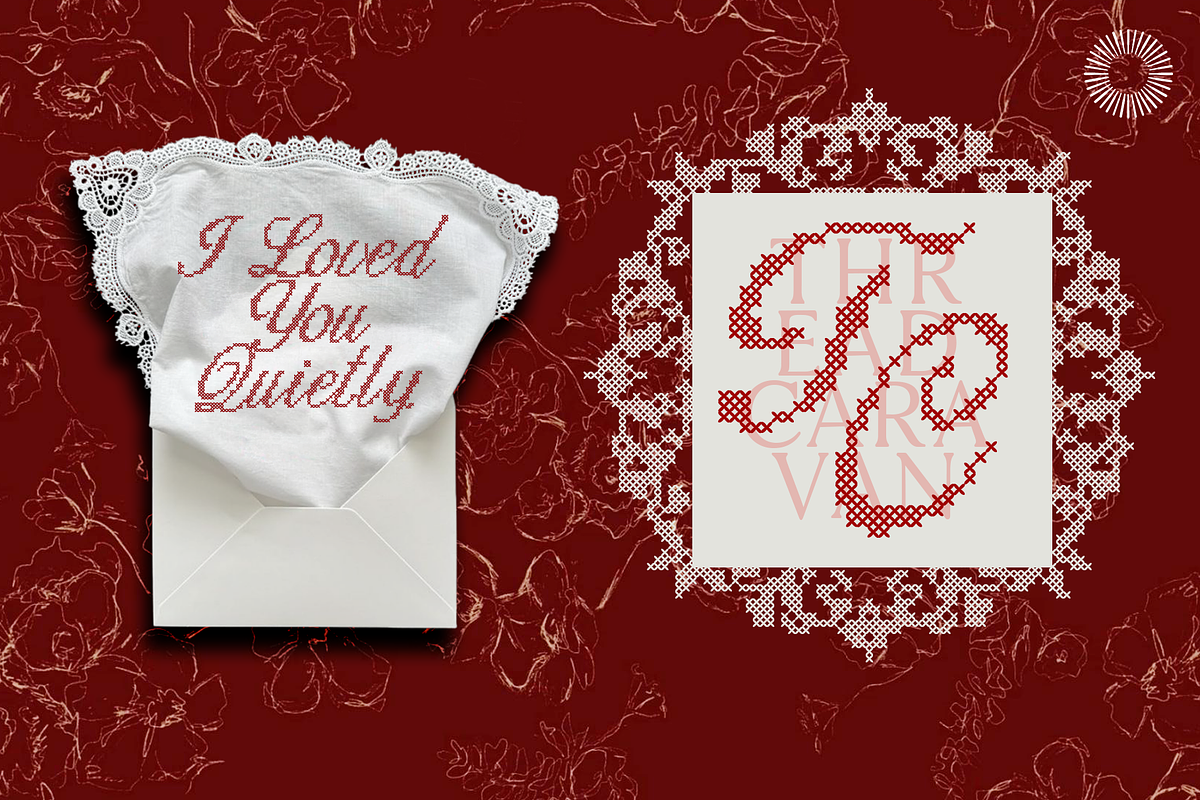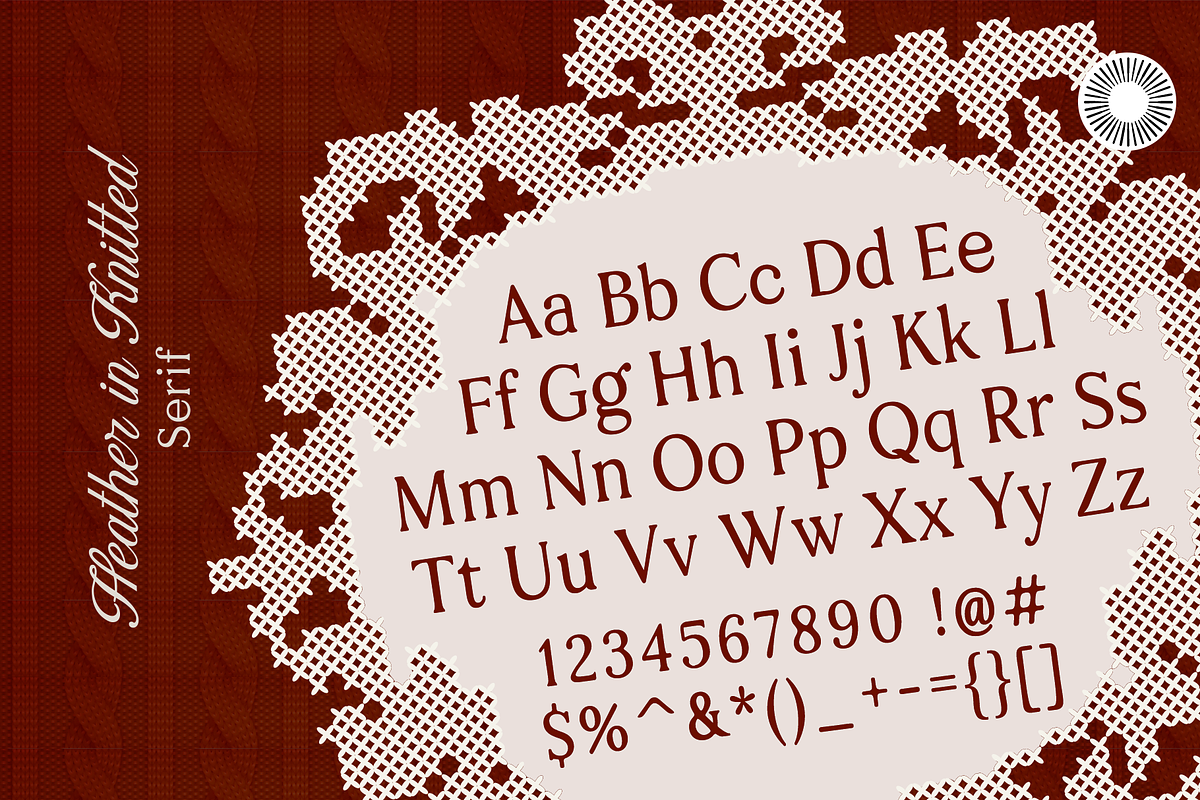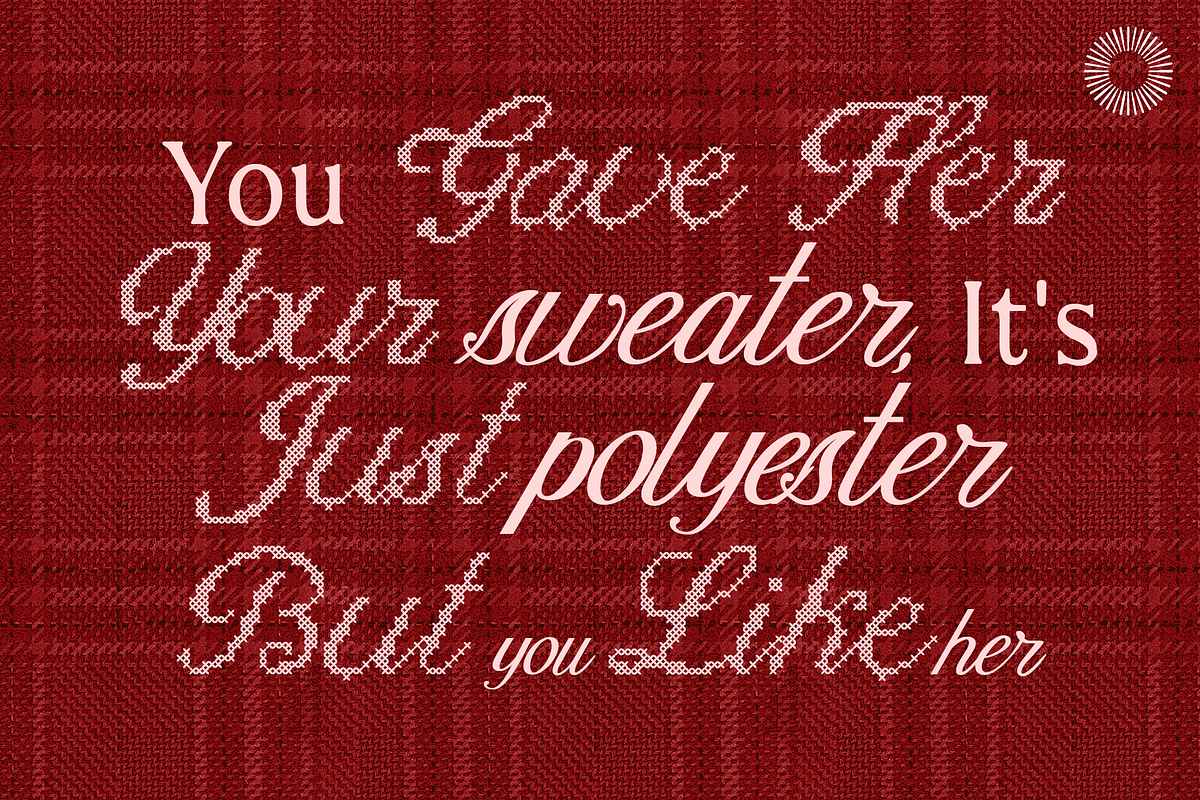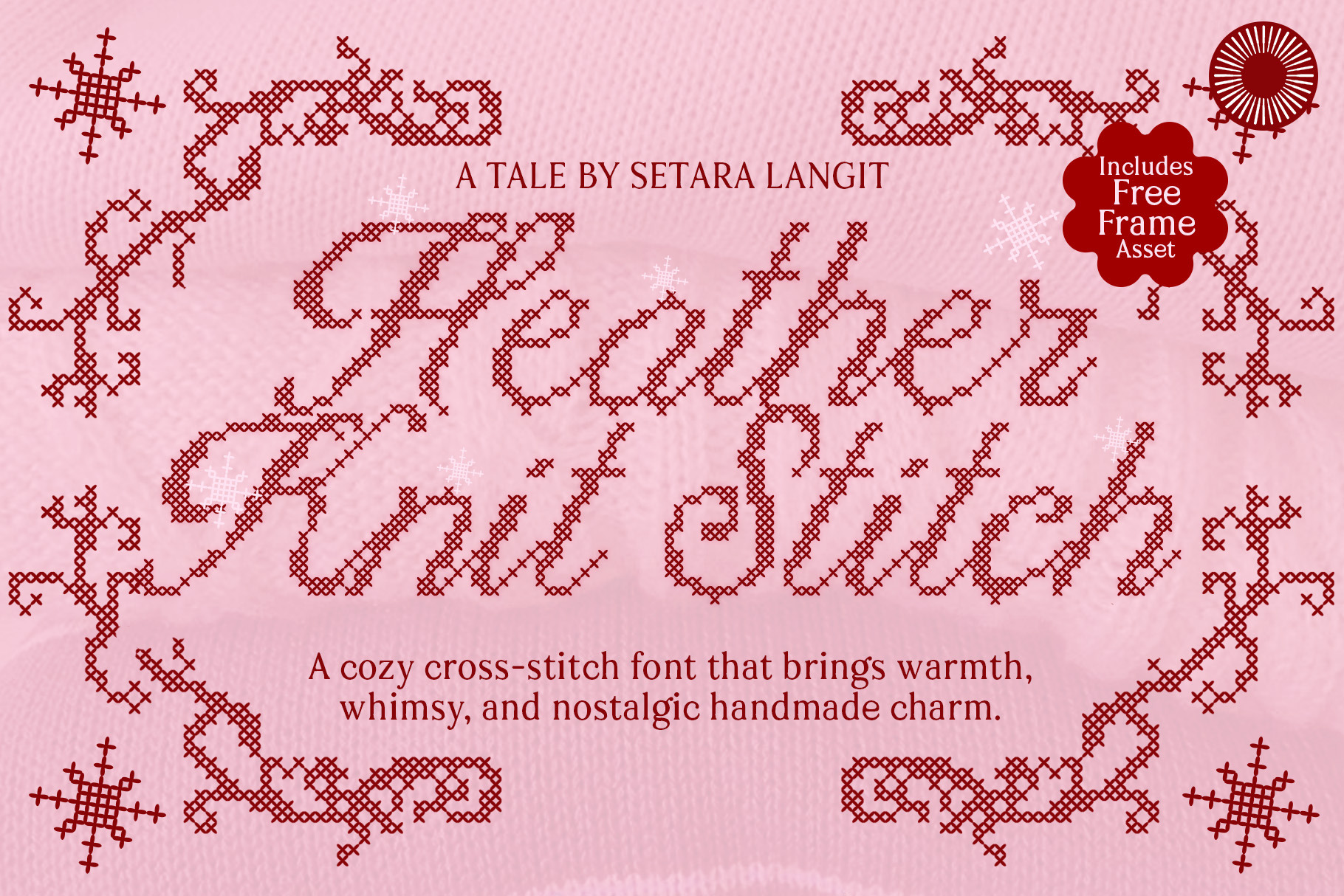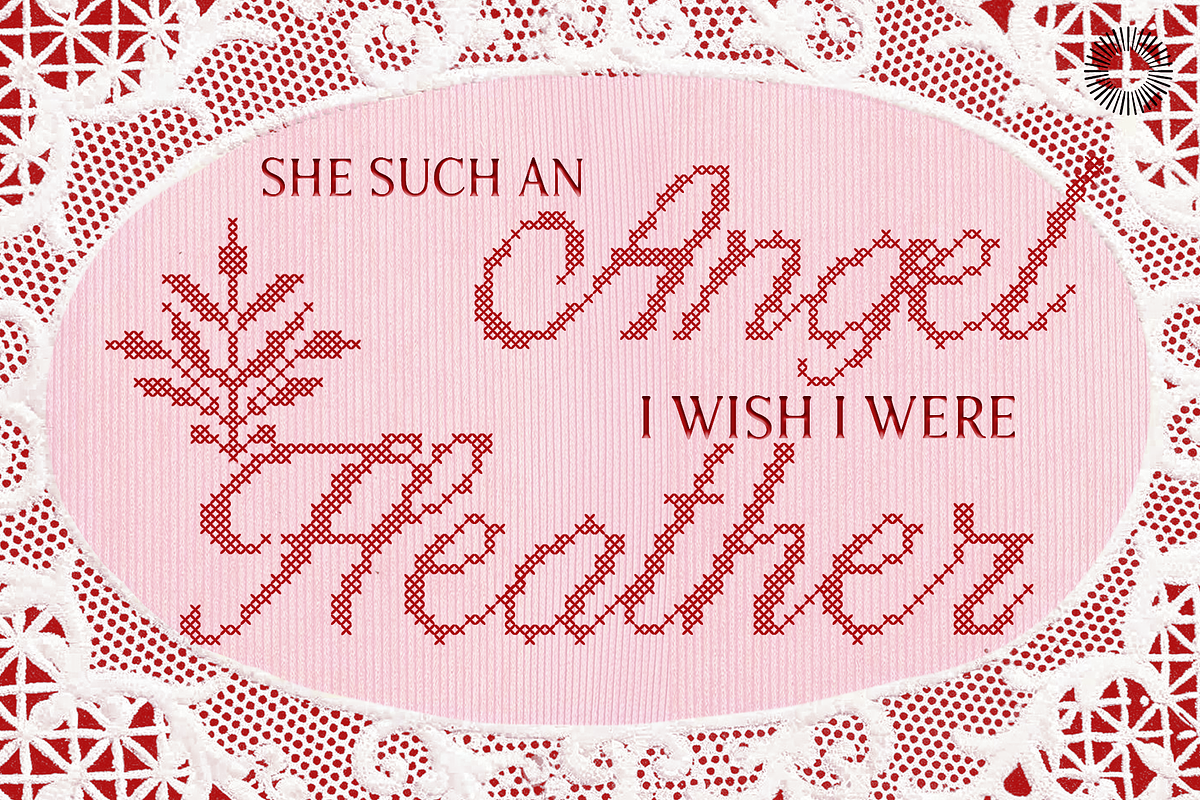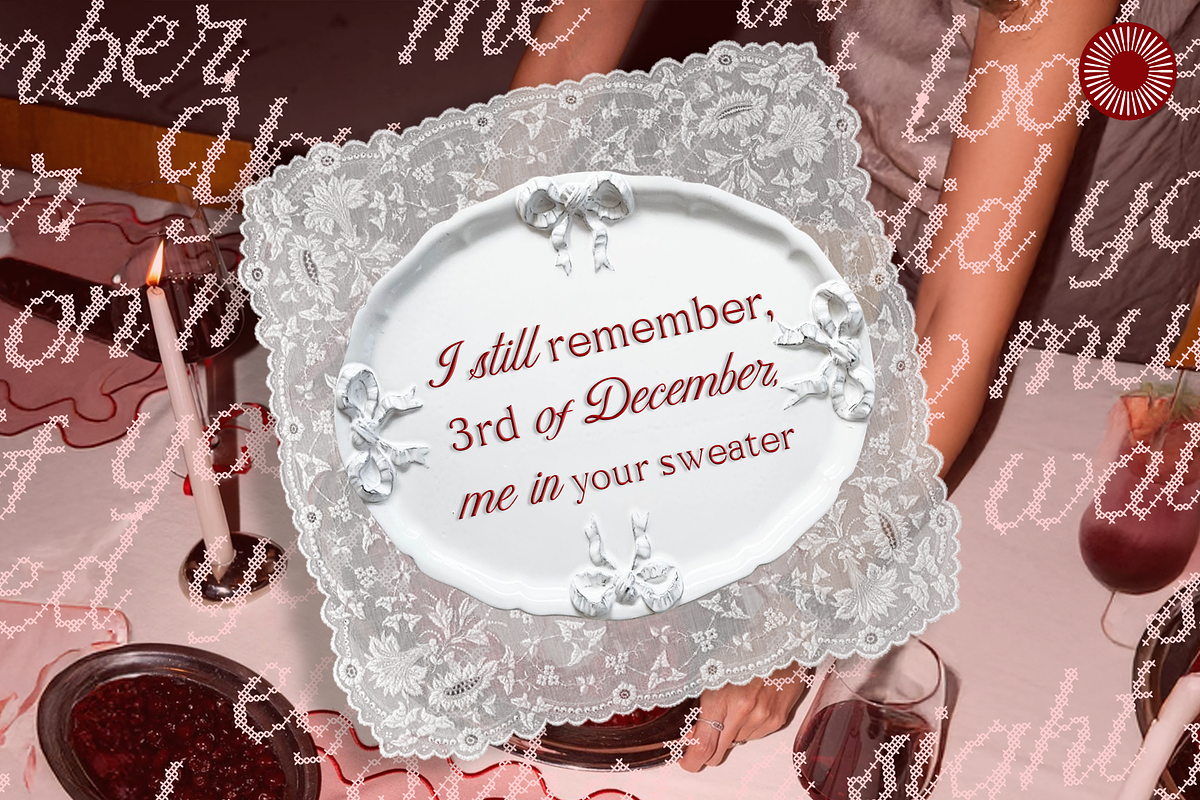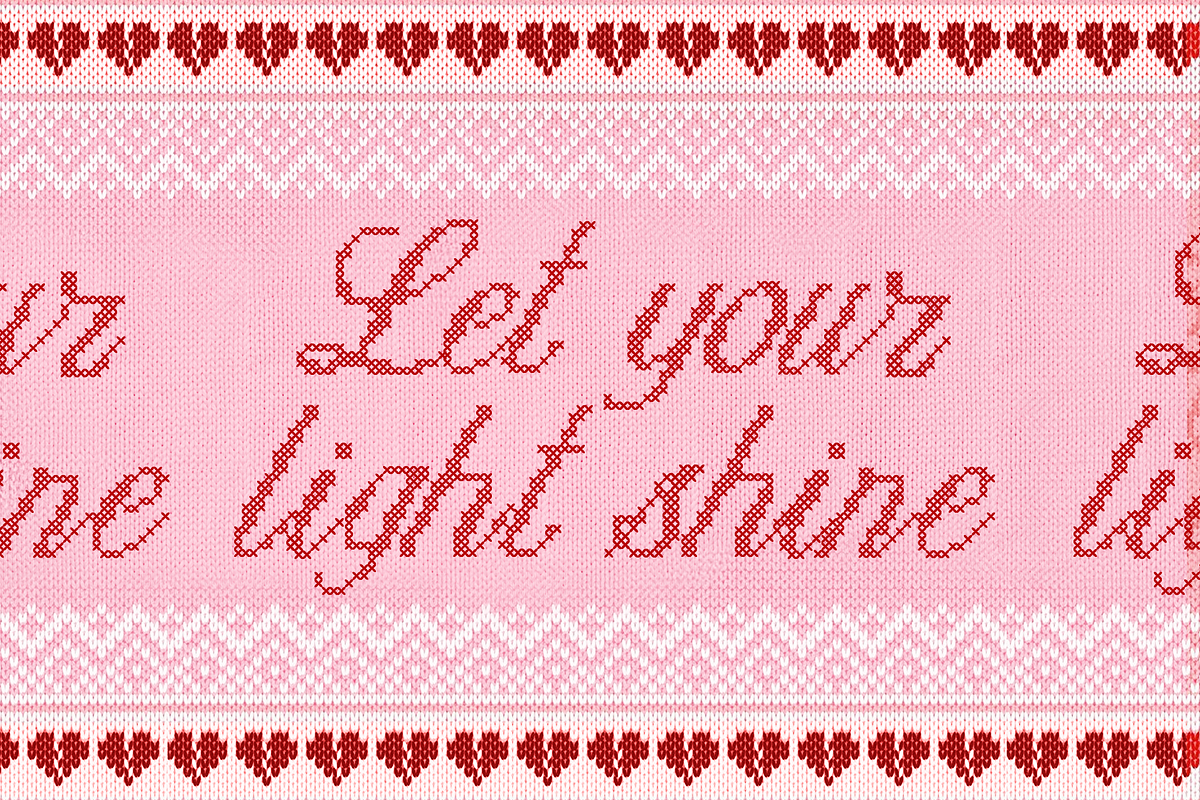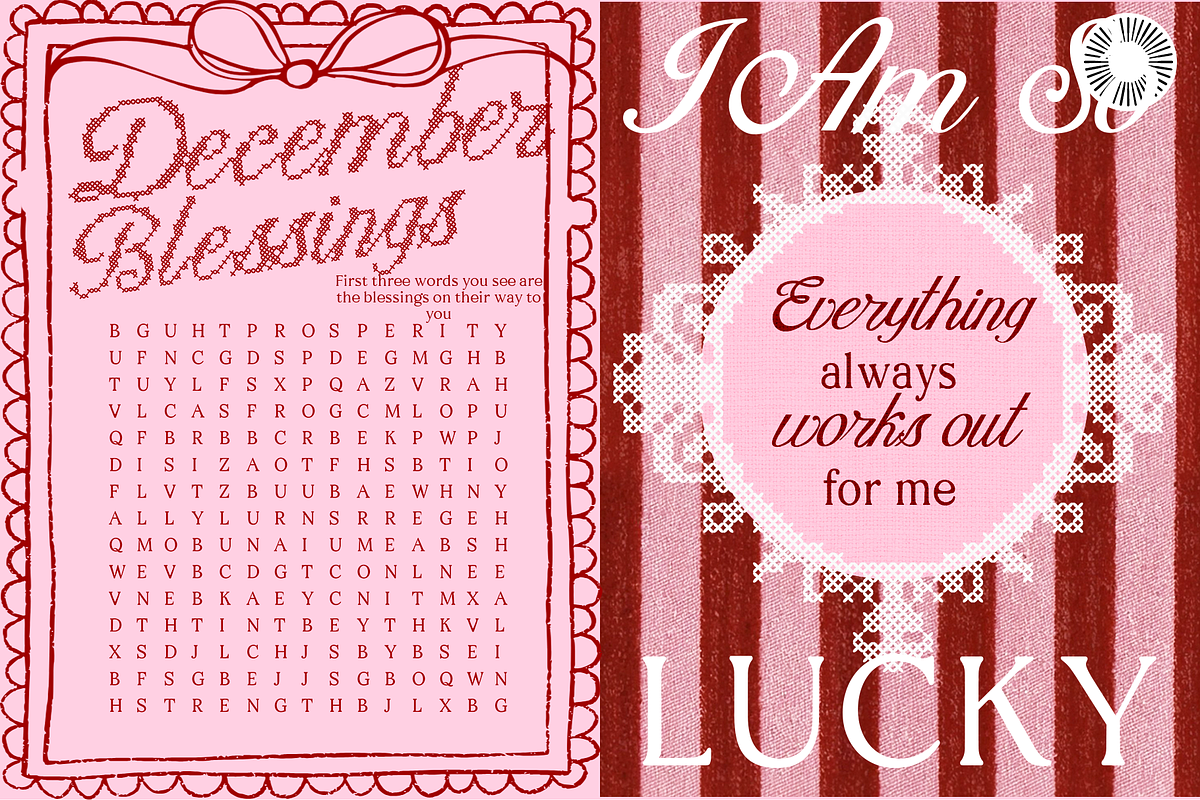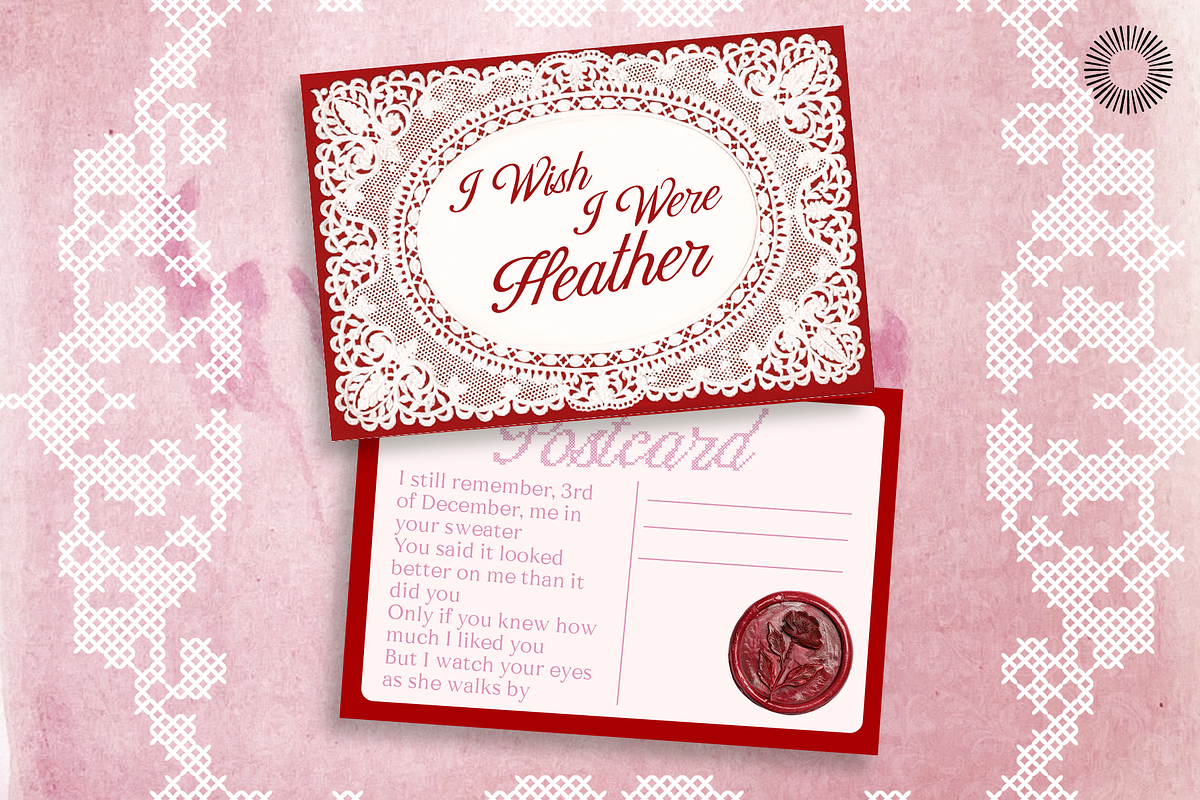
Heather knit - Stitch Font Bundle
Heather Knit – Cozy Stitched Font Bundle Heather Knit is a warm, handcrafted font bundle inspired by knitted stitches and cozy handmade textures. This bundle is designed as a complete typographic set, combining stitch, script, and serif styles, along with a matching decorative frame asset, so you can build harmonious designs without searching for extra elements. The stitch style brings the signature knitted texture—expressive, playful, and full of handmade character. To balance this, the script and serif styles are created with cleaner forms and consistent proportions, allowing them to pair naturally with the stitch lettering while keeping your layouts readable and well-structured. All fonts in the bundle share compatible spacing, weight balance, and overall rhythm, making them easy to mix and match in a single project. The included frame asset follows the same stitched aesthetic, completing the visual system.
What’s included: Stitch Style Font – knit-inspired lettering with textured, handcrafted detail Script Style Font – smooth and flowing for accents and highlights Serif Style Font – clean and readable for supporting text Decorative Frame Asset – stitched frame designed to match the fonts (If you don’t receive it with your purchase, please feel free to contact me via DM)
Why this bundle works? Instead of relying on a single decorative font, Heather Knit offers a balanced font system. The stitch style adds personality, while the script and serif styles provide clarity and structure. The matching frame asset helps you create complete compositions quickly, keeping everything visually consistent.